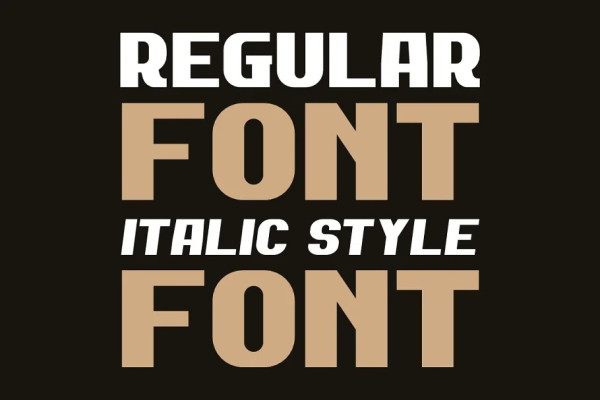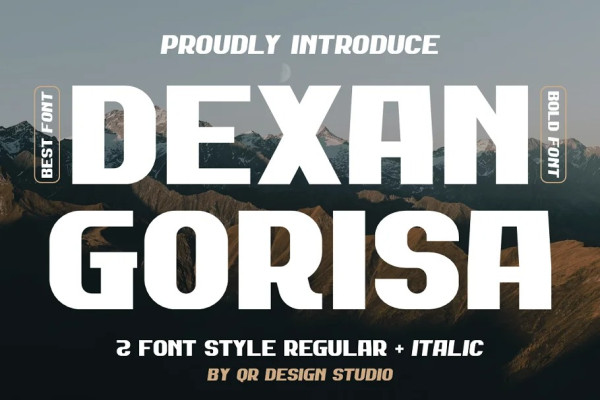
Dexan Gorisa Font
Dexan Gorisa Font – Regular + Italic Font is a bold and authentic display font. The font is suitable for any branding project like logo, poster, food, sport, and many more. Outstanding in a wide range of contexts.